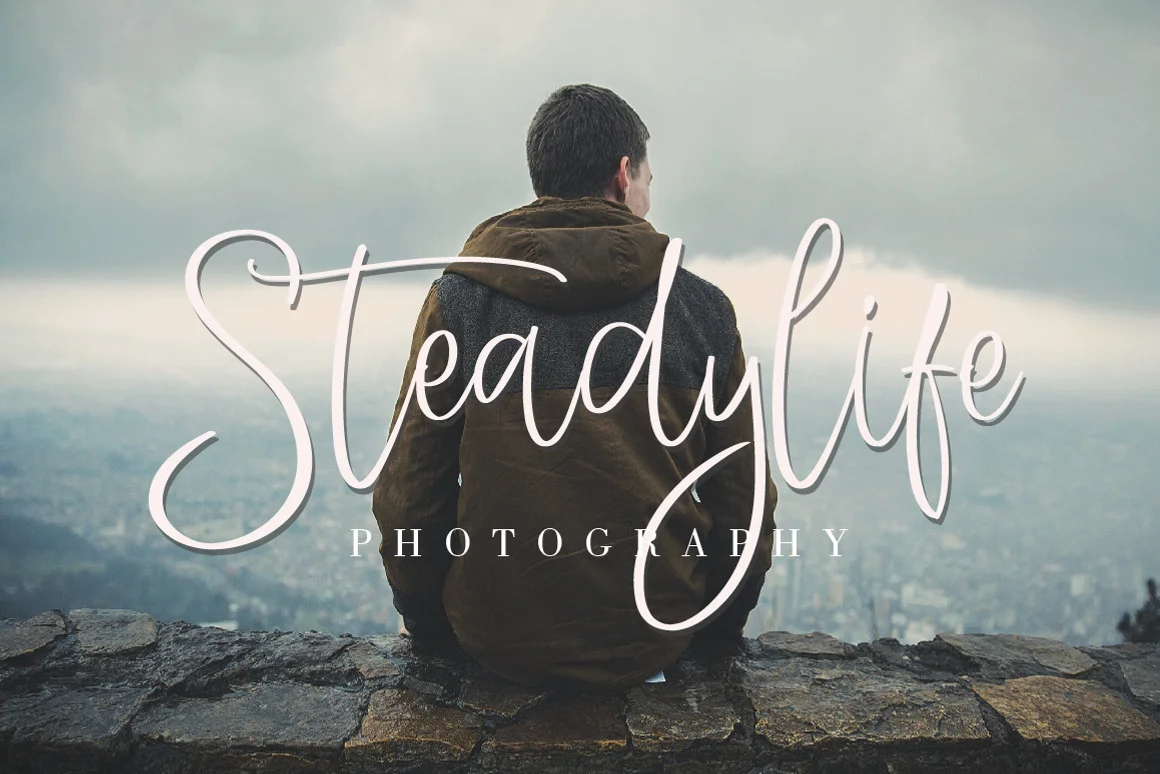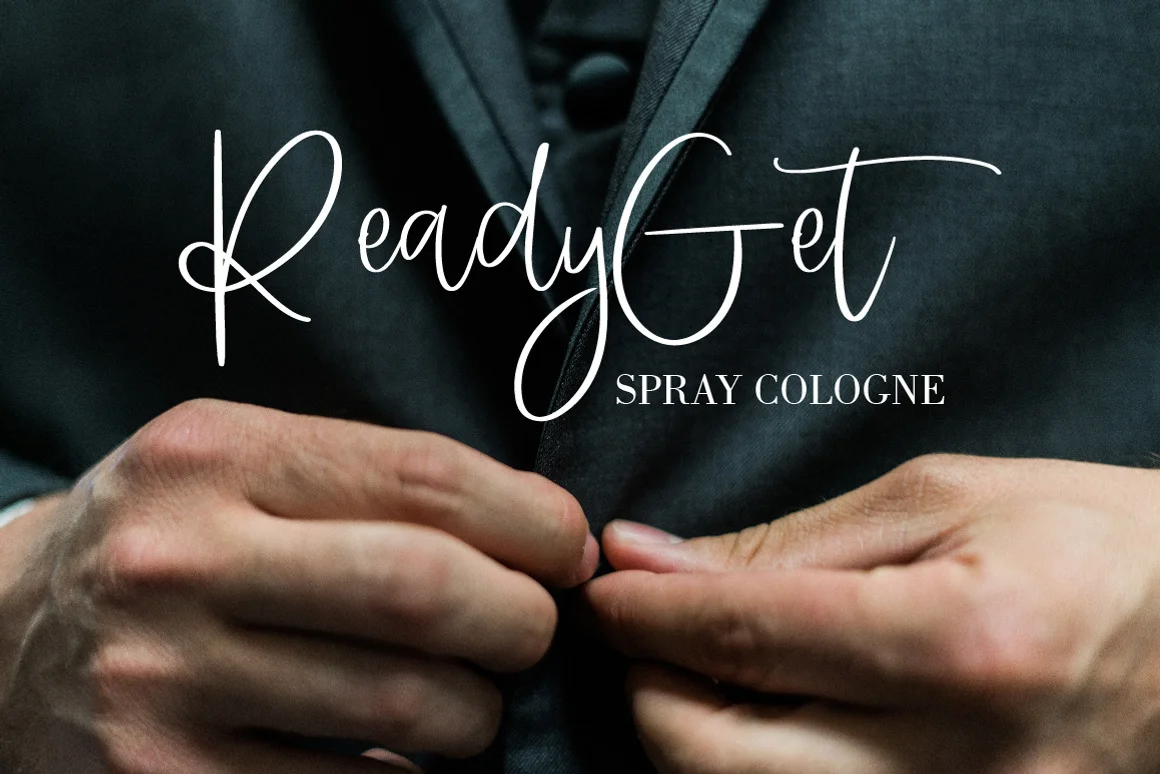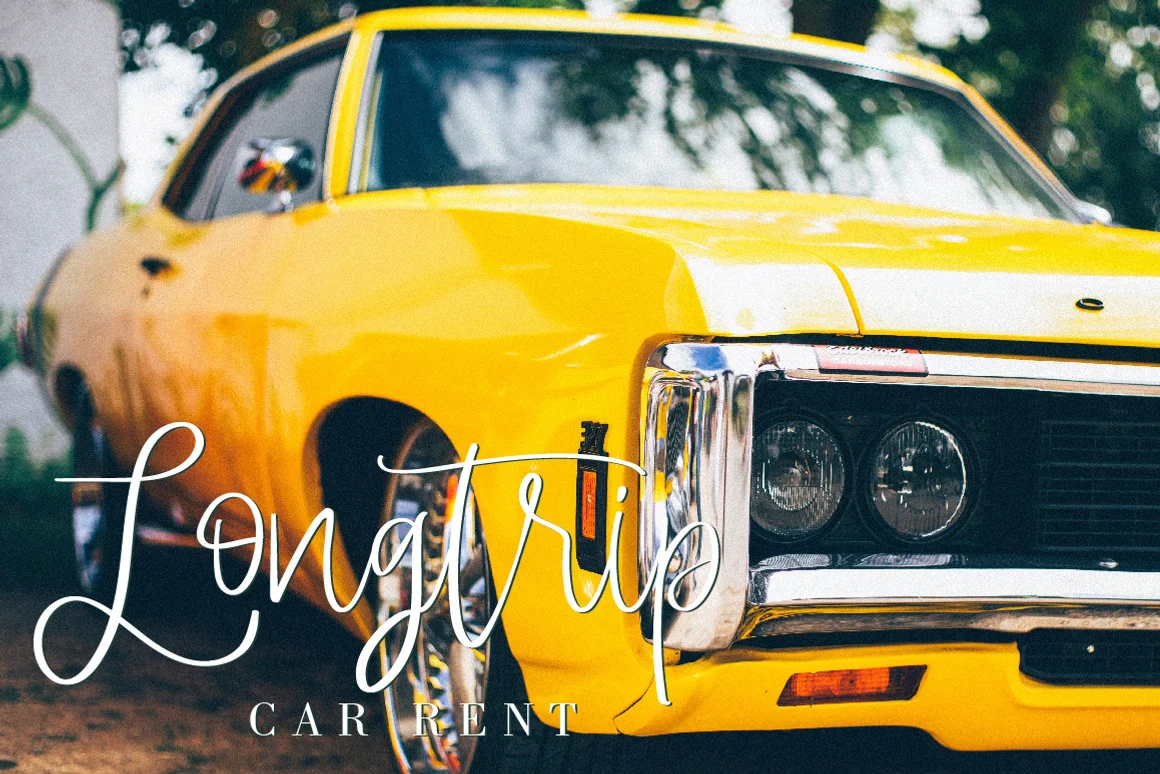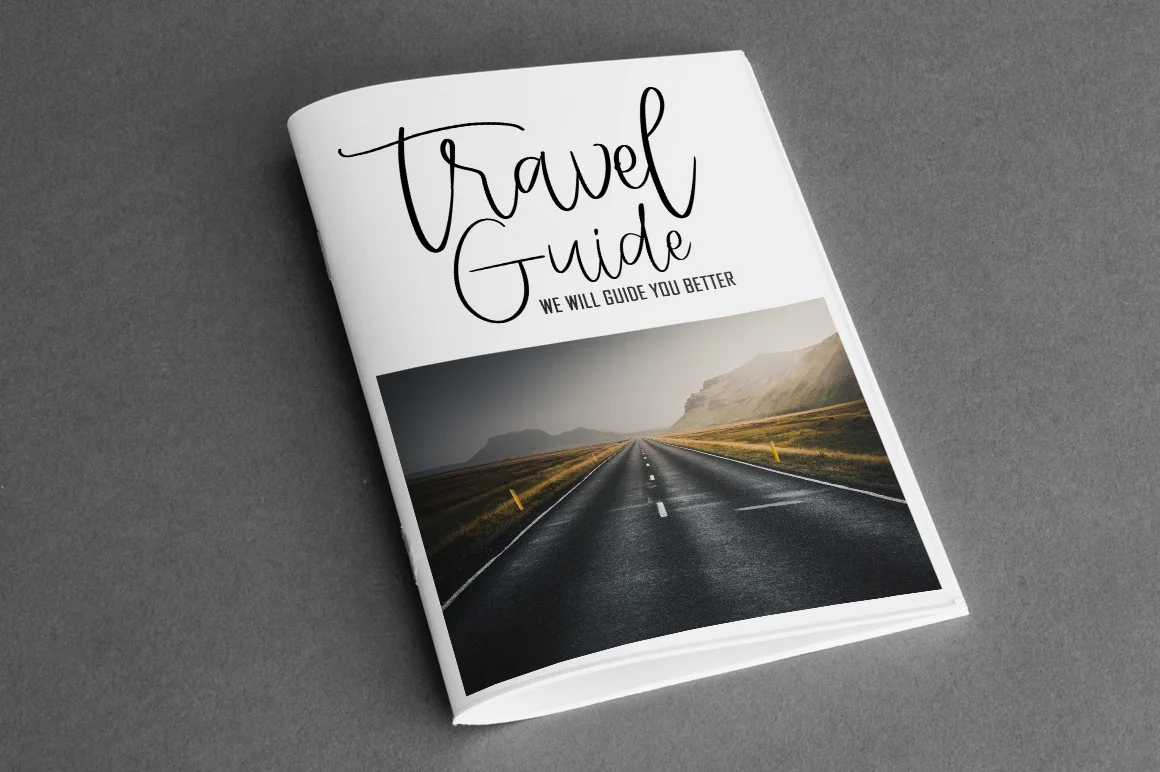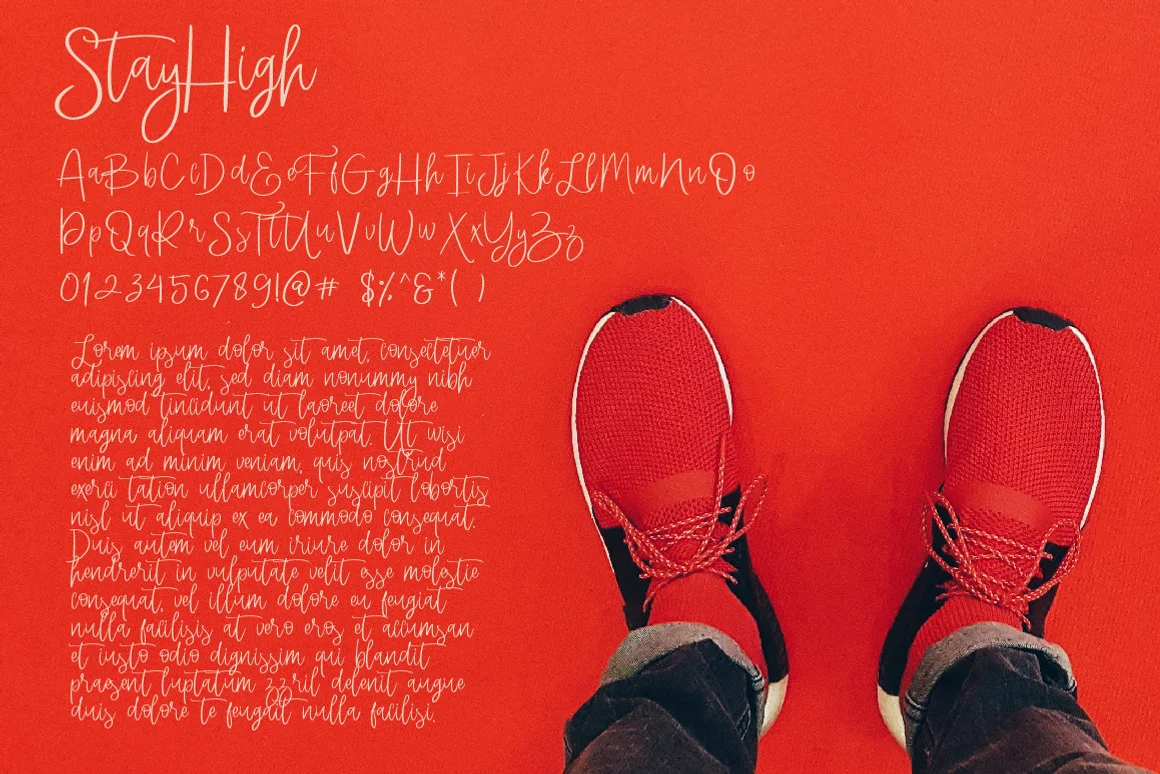
StayHigh Signature Font
The StayHigh Signature Font excels in dynamic design applications including motivational branding, energetic startup logos, uplifting product packaging, inspirational social media graphics, positive lifestyle brands, creative portfolios, encouraging greeting cards, ambitious business identities, optimistic marketing materials, and elevating web design. Its uplifting script style makes it perfect for projects requiring positive energy that communicates aspiration and establishes motivational connections with audiences seeking empowerment and personal elevation.
What makes the StayHigh Signature Font genuinely exciting is its exceptional ability to convey upward momentum and positive energy through dynamically designed letterforms. The font features ascending strokes with energetic flourishes and optimistic proportions that create a distinctly uplifting appearance. Each character displays remarkable craftsmanship with soaring curves, enthusiastic connections, and elevated spacing that give text an inspiring, hand-lettered quality. The font's motivational character and ascending rhythm create an atmosphere of possibility while maintaining authentic handwritten appeal and accessibility.
The StayHigh Signature Font family typically includes regular weight with comprehensive character sets, featuring uppercase and lowercase letters, numerals, punctuation, and international glyphs. The typeface often incorporates stylistic alternates, contextual ligatures, and motivational swashes that enhance its signature energy. These additional elements provide designers with creative flexibility to customize text appearance and achieve more natural-looking uplifting handwriting that reflects the font's positive and aspirational character.
This inspiring signature font distinguishes itself through its remarkable ability to motivate and energize audiences while maintaining professional credibility. Unlike static fonts that lack emotional impact, StayHigh Signature Font embraces the power of positive design to inspire action and elevate spirits. The font's energetic character makes it essential for motivational brands, fitness companies, and aspirational businesses where inspiring audiences to reach higher goals is fundamental to connecting with their dreams and ambitions.
The StayHigh Signature Font offers designers an exceptional opportunity to incorporate uplifting typography into their motivational projects. From fitness brands to personal development ventures, this font delivers the inspiring signature aesthetic that resonates with audiences seeking motivation and positive change. Its energetic appeal ensures your designs communicate optimism and possibility while the signature styling adds distinctive personality that encourages people to stay elevated in any application requiring motivational typography solutions.